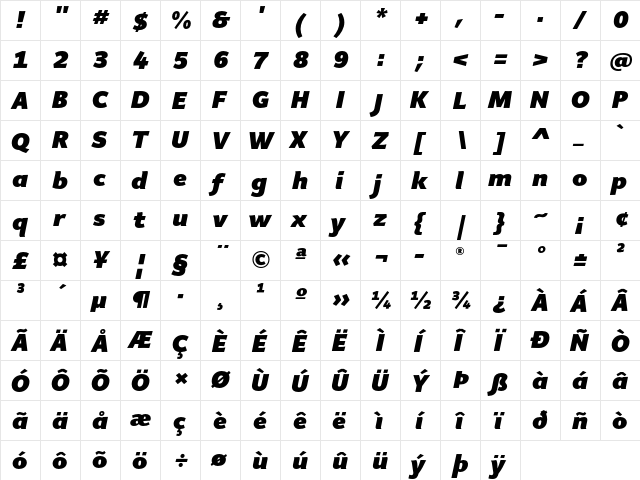
Giacomo MD Black Italic
| Designer | James Montalbano |
Design Context for Giacomo MD Typeface
Giacomo MD takes a measured approach to typography — its balanced proportions and neutral character make it a reliable workhorse for both digital and print work. The slanted form adds forward momentum and visual energy.
Pro Tip: Use Giacomo MD for emphasis, pull quotes, and subheadings where its slanted energy can add rhythm to the layout.